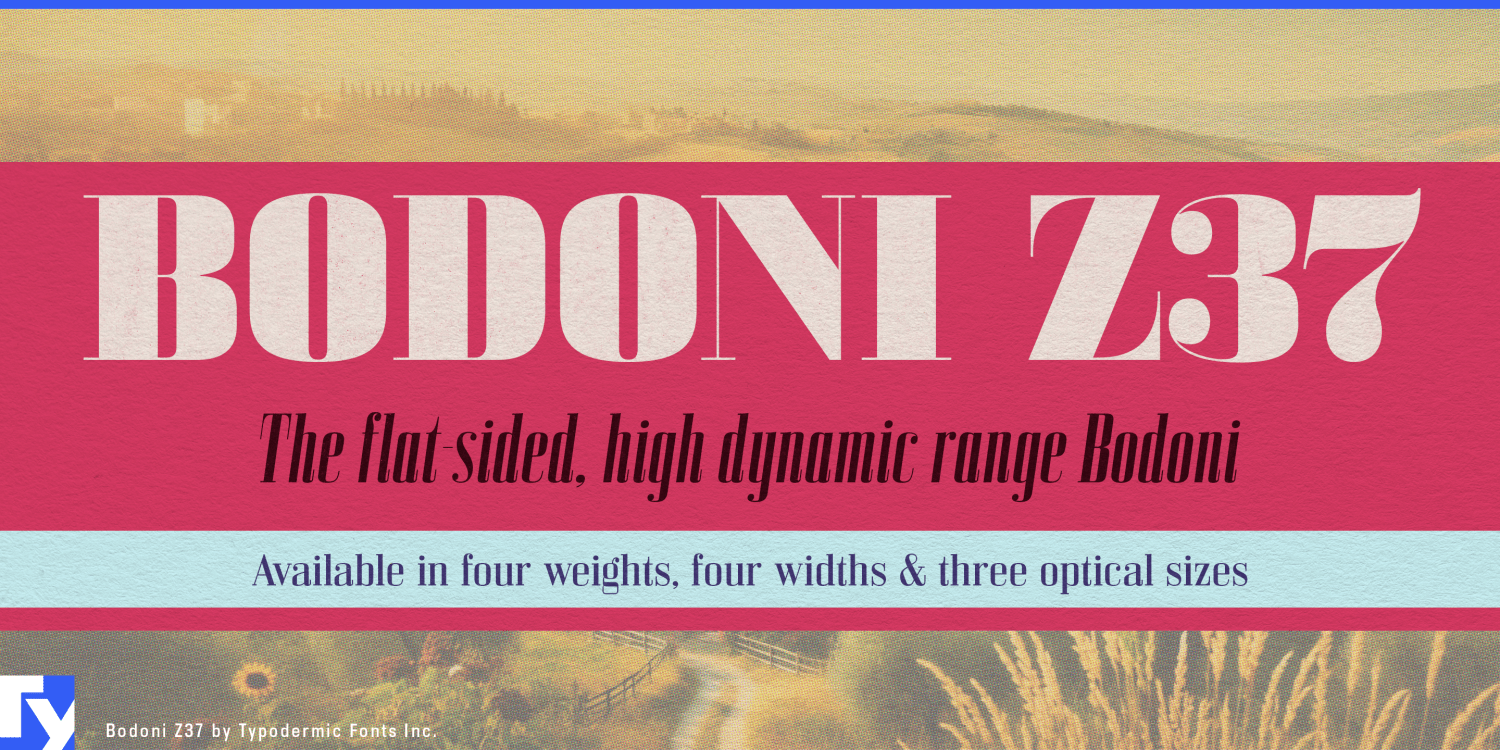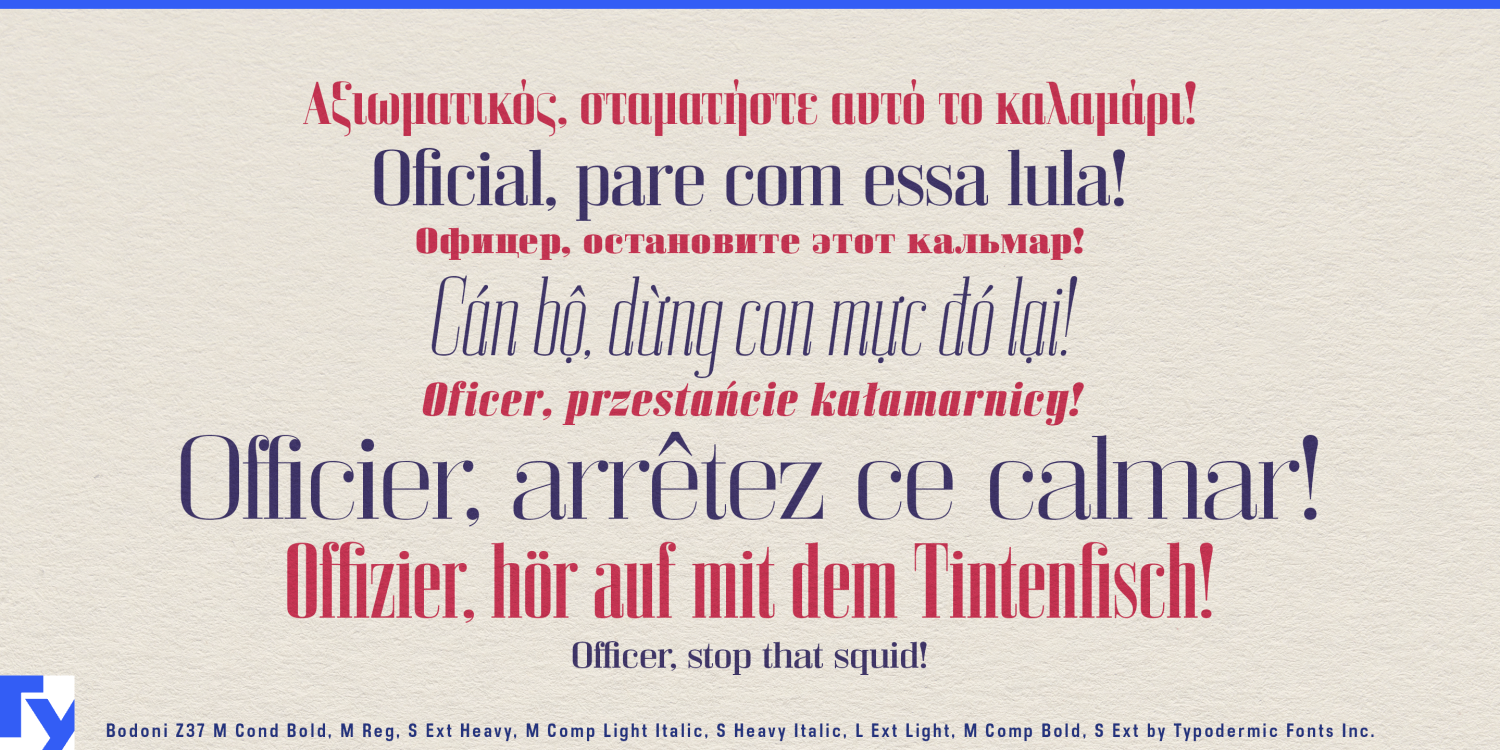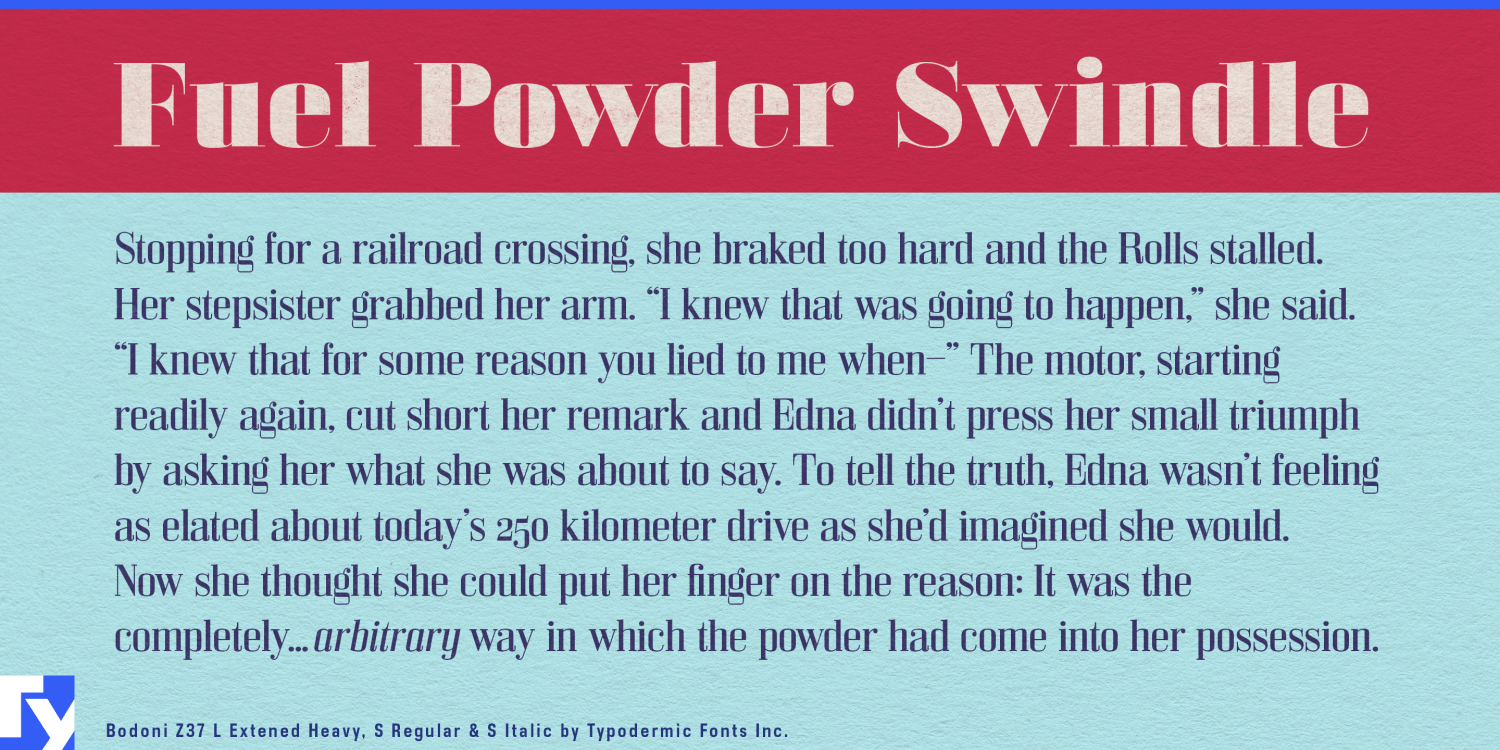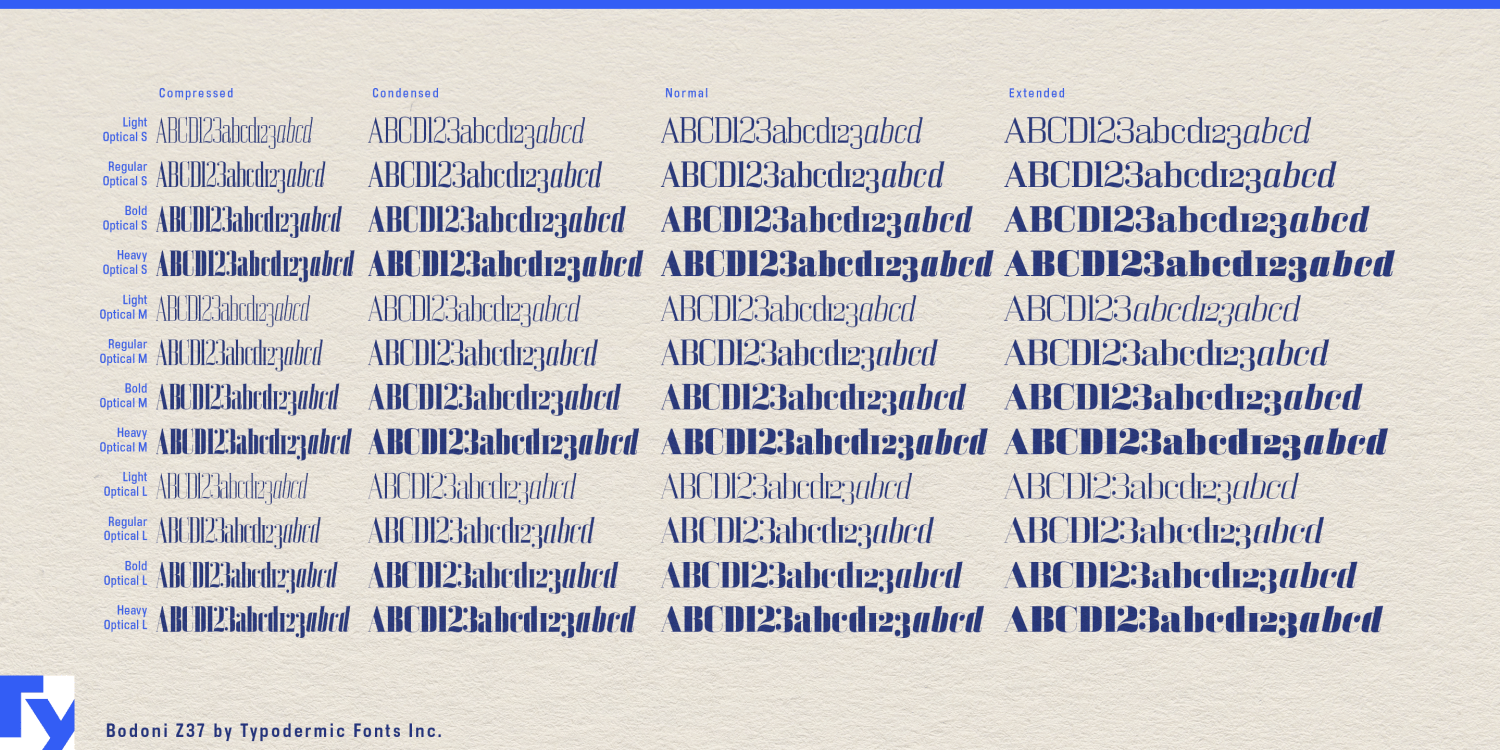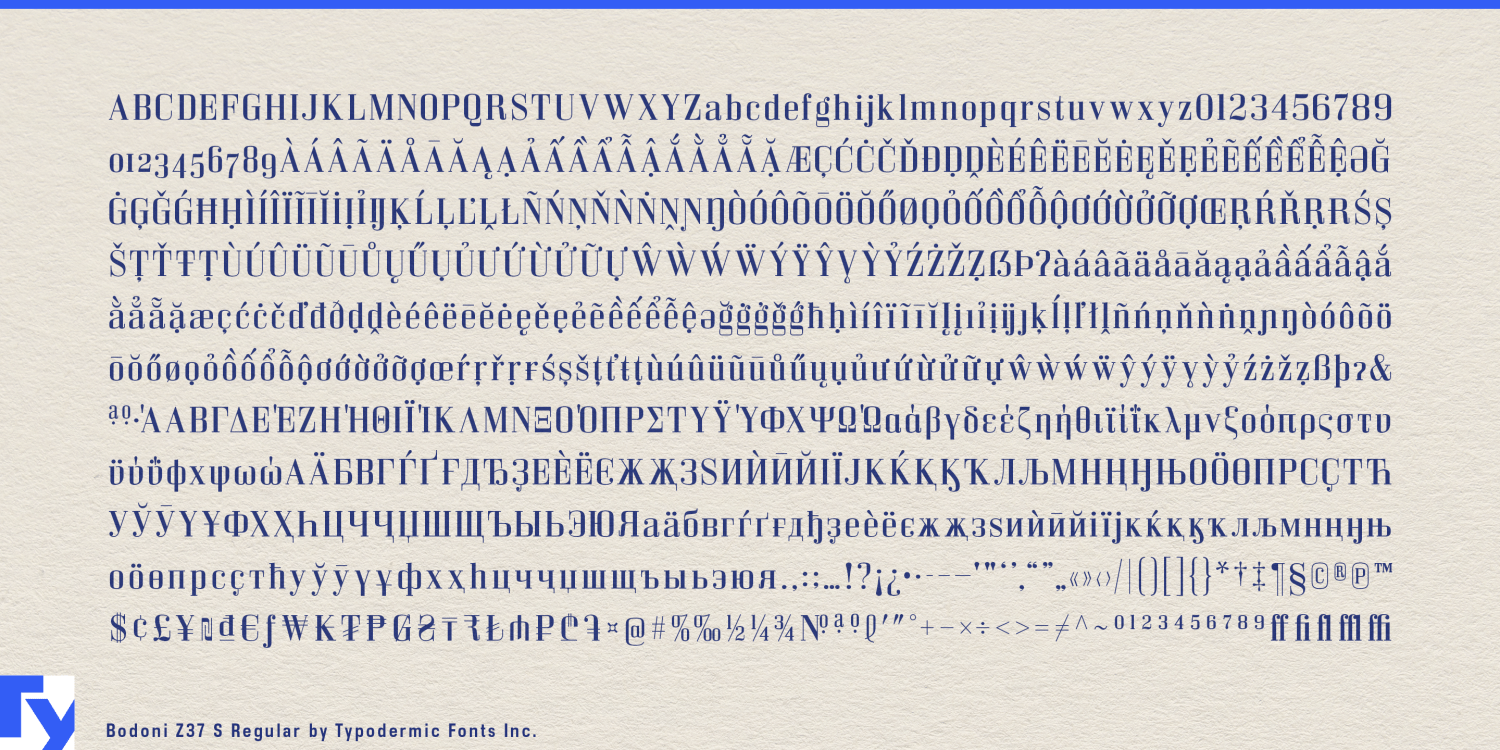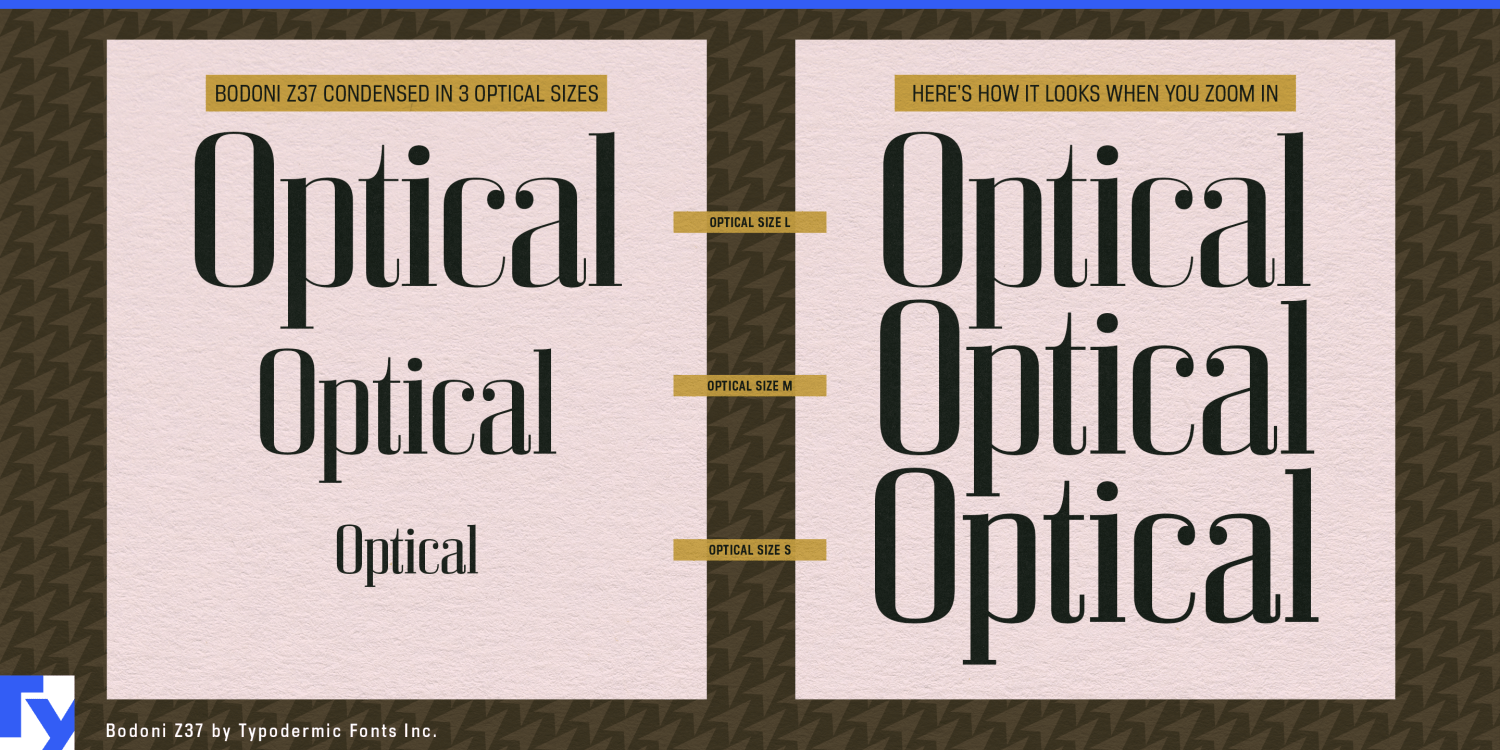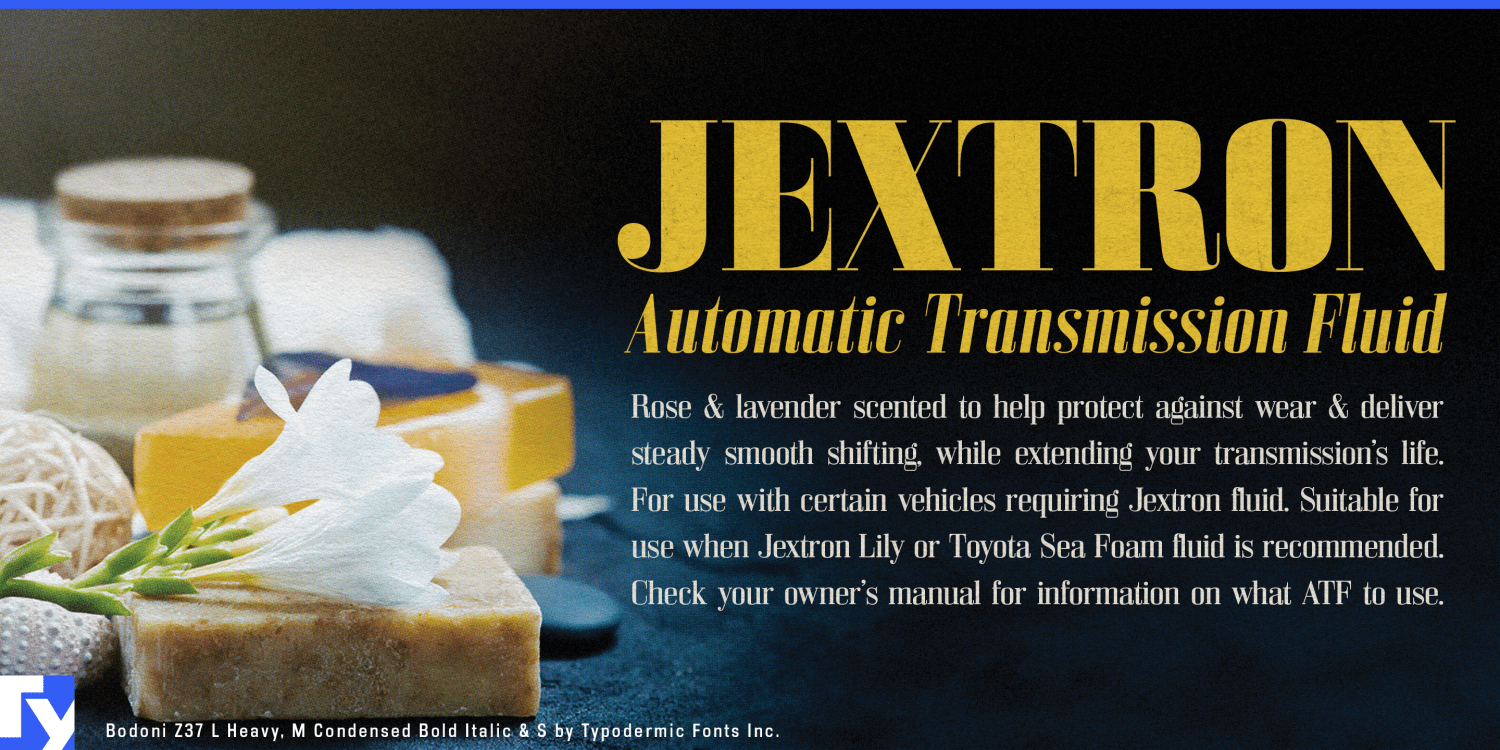
Bodoni Z37
A Bodoni can look spectacular in one perfectly chosen headline and become troublesome the moment the layout changes. Hairlines that sparkle across a magazine cover may become fragile at smaller sizes; a graceful wordmark may refuse to fit a narrow package; a condensed substitute may look squeezed rather than designed. Bodoni Z37 was built for the harder job of carrying high-contrast Didone typography across an entire display system.
The family combines four weights, four widths from Compressed through Extended, three optical sizes and matching italics, producing 96 coordinated styles. Contrast changes with optical size so smaller settings remain sturdier while the largest cuts can push the fine strokes much further. Width is treated as a design problem too: the narrower styles become progressively flatter-sided rather than simply compressing an oval construction into less space.
Fashion editorial makes particularly good use of that range. A single issue may need a broad masthead, a tall compressed cover line, a huge collection name across a photograph, narrow designer credits, pull quotes and smaller section headings. Bodoni Z37 can change proportion and contrast as those spaces demand while keeping the same underlying voice.
Art publishing and exhibition design create a similar range of scales. Museum identities, photography monographs, gallery catalogs, retrospective books and art-fair programs may move from enormous wall titles and cover typography to section headings, captions and narrow informational lines. Bodoni Z37 can provide the expressive display layer throughout that system while a quieter companion face handles sustained reading.
Packaging puts the width range under even more pressure. Perfume cartons, skincare bottles, wine labels, spirits boxes and specialty-food packages frequently offer typography an awkward collection of tall strips, broad panels and small secondary areas. A long product name can move into Compressed without looking artificially squeezed; a broad carton front can take advantage of Extended; smaller headings can use a sturdier optical cut while a large name gets the finer, more dramatic treatment.
Beauty and fragrance campaigns can push the family toward its most extreme contrast. Large optical styles let hairlines become part of the spectacle on campaign posters, window graphics and full-screen advertising, while narrower cuts fit naturally onto bottles and vertical packaging.
The increasingly flat-sided construction of the narrower widths gives Bodoni Z37 another distinction from softer, more conventional Didones. At wider settings it can remain relatively classical; as it compresses, the shapes become sharper and more architectural.
Bodoni Z37 is not intended to replace a comfortable long-reading text face. Its strength is the expressive layer around the text: covers, mastheads, feature openers, package names, exhibition titles, pull quotes and other prominent typography that must survive dramatic changes in size and proportion.